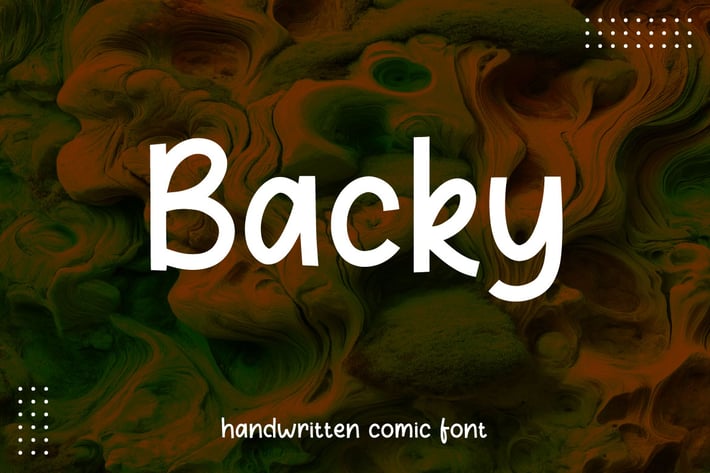
Backy - Clean Comic Font
Introducing Backy - Clean Comic Font, a fun and versatile typeface designed to bring a touch of playful professionalism to your projects. With its crisp lines and clear characters, this font is perfect for both comic book enthusiasts and professional designers looking for a unique and engaging font style.
Perfect for adding a touch of whimsy to your design projects without sacrificing clarity and readability. Whether you're designing a playful logo, an eye-catching poster, or a captivating comic book, Backy - Clean Comic Font is the ideal choice to make your text stand out.
Bring your designs to life with Backy - Clean Comic Font, a typeface that combines the fun of comics with the sophistication of modern typography. Download now and start creating engaging and dynamic visuals that capture attention and convey your message effectively.